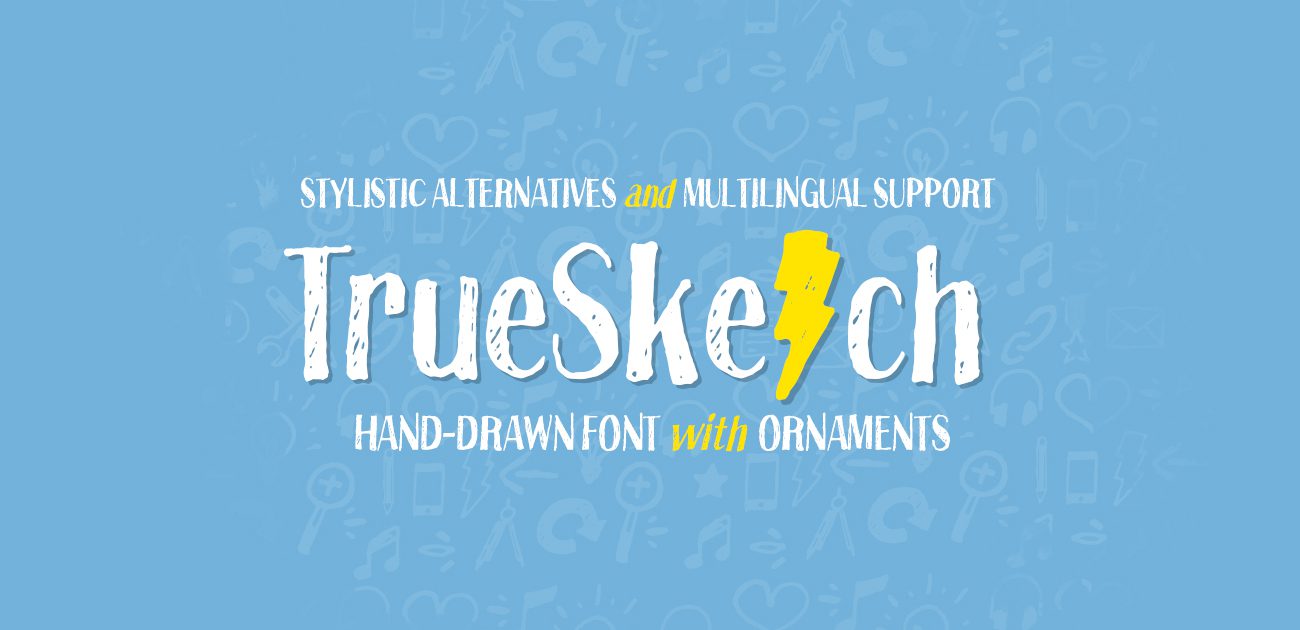
TrueSketch – Handsketched Font Family with Bonus Ornaments
Introducing Truesketch; a creative, practical and versatile font family with a strong handcrafted vibe, perfect for those design projects that needs a dash of DIY. To help emphasize the handwritten style of Truesketch, every letter (uppercase and lowercase) has its own stylistic alternative (the same letter drawn slightly differently – accessible via your software’s glyph panel). This powerful addition drastically improves the authenticity of the font and can help improve your design for those eagle eye clients.
TrueSketch comes in both regular and italic styles, also available is an ornamental font containing 85 hand-drawn design elements that beautifully complements the scribbled nature of TrueSketch and is perfect for those finishing touches!